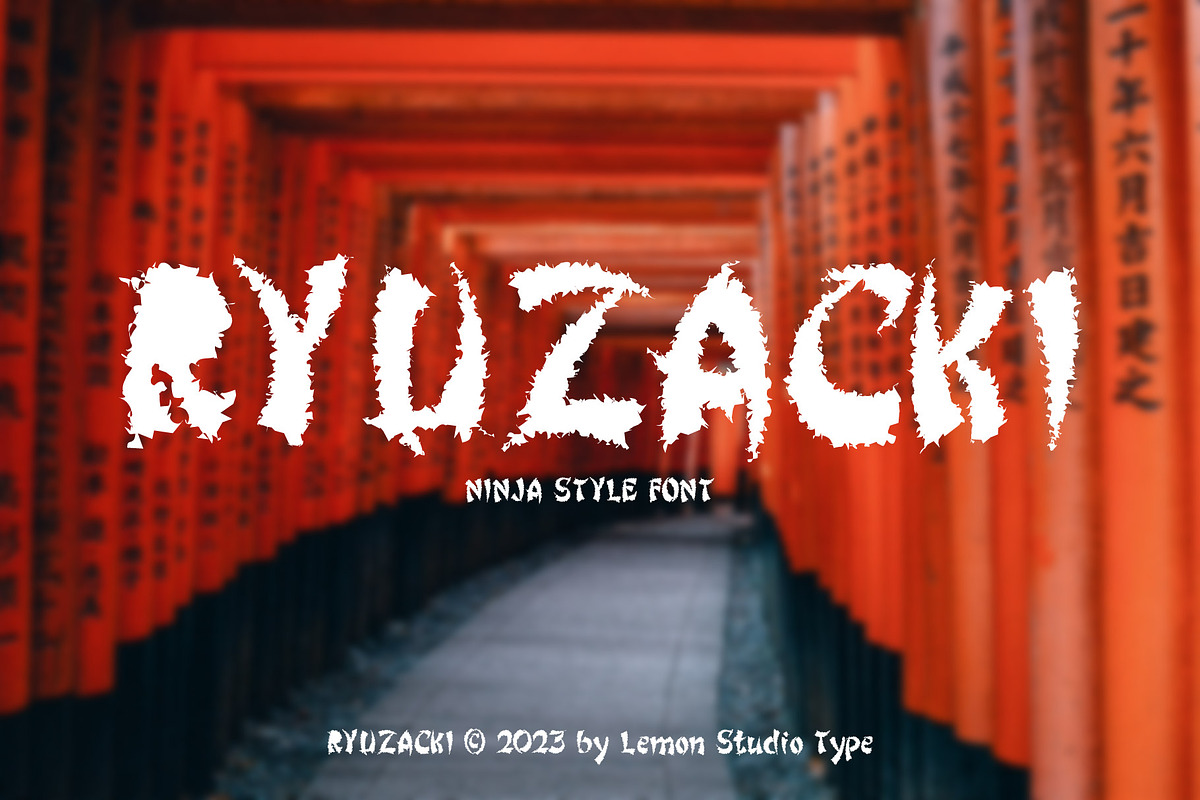
Ryuzacki - Display
Ryuzacki is a whimsical font with a theme inspired by ninja and Japanese styles. Use this font for your various design needs. Especially to complete the appearance of the page design and its headings.
OPEN TYPE FEATURES:
-Superscript
-Fractions
-Multilingual Support.